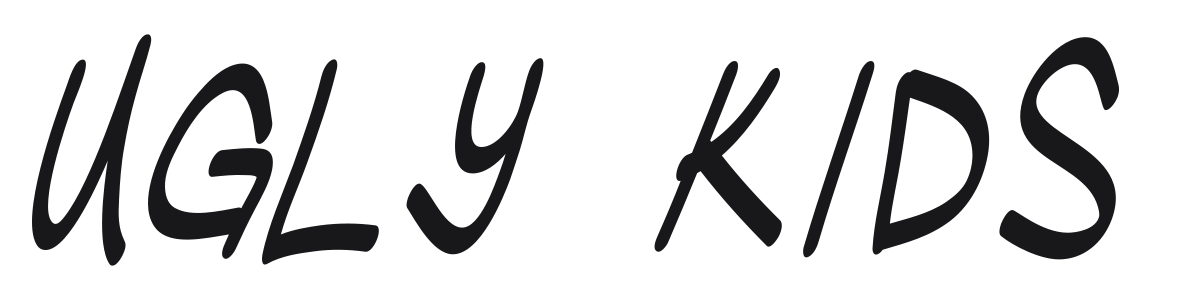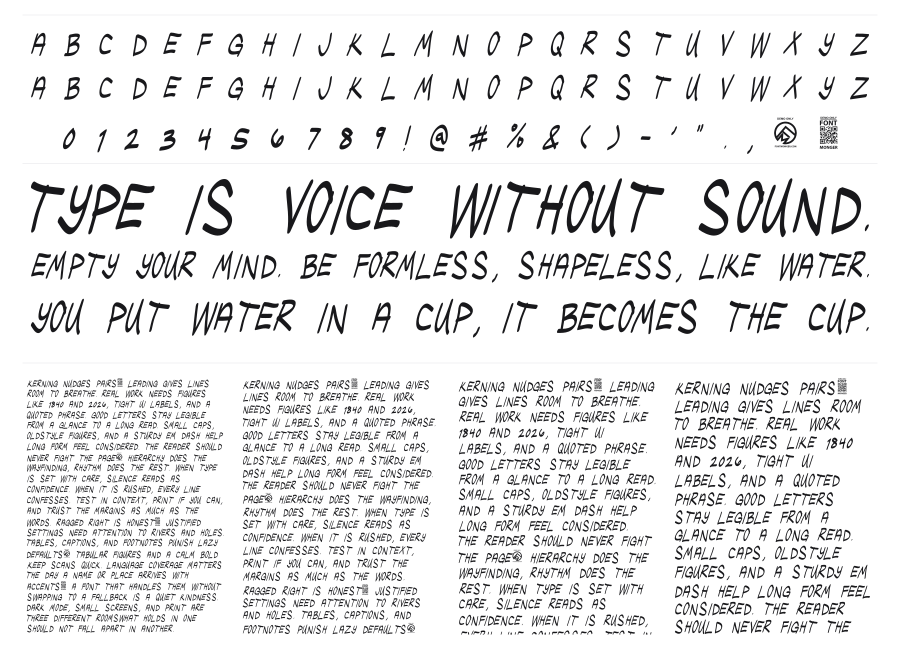
Ugly Kids
Ugly Kids is a loose, slanted handwritten face from Chris Vile that looks like someone scrawled it fast with a thick marker and didn't bother to straighten up. The letterforms lean playful and a little bratty, with the casual energy of comic lettering or DIY zine headers. Best for headlines and short text where you want something that feels unfiltered and off-the-cuff.